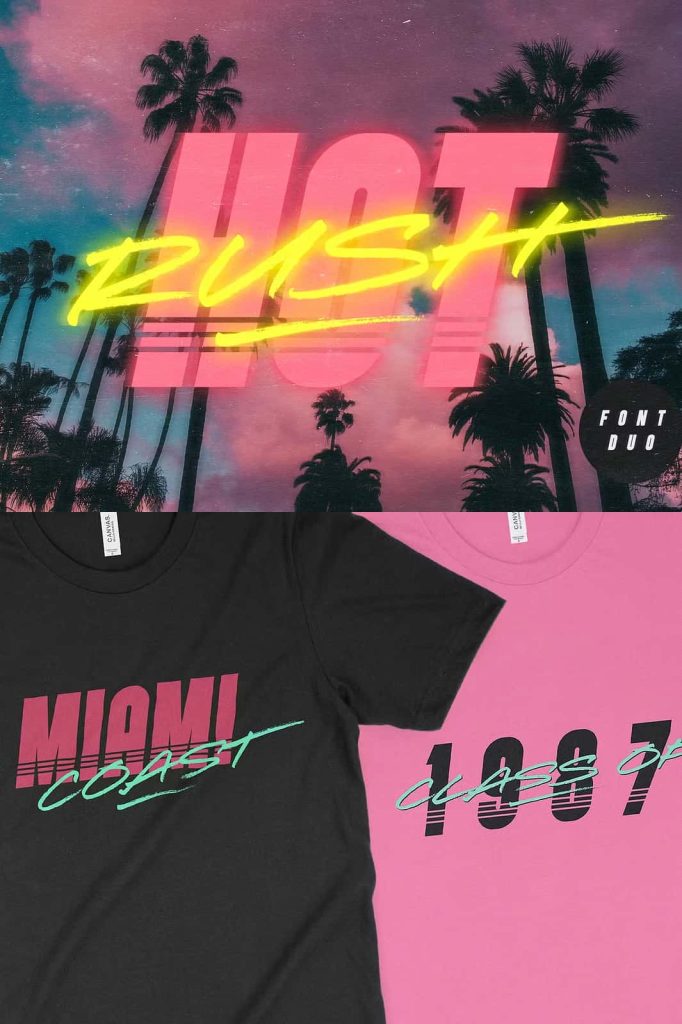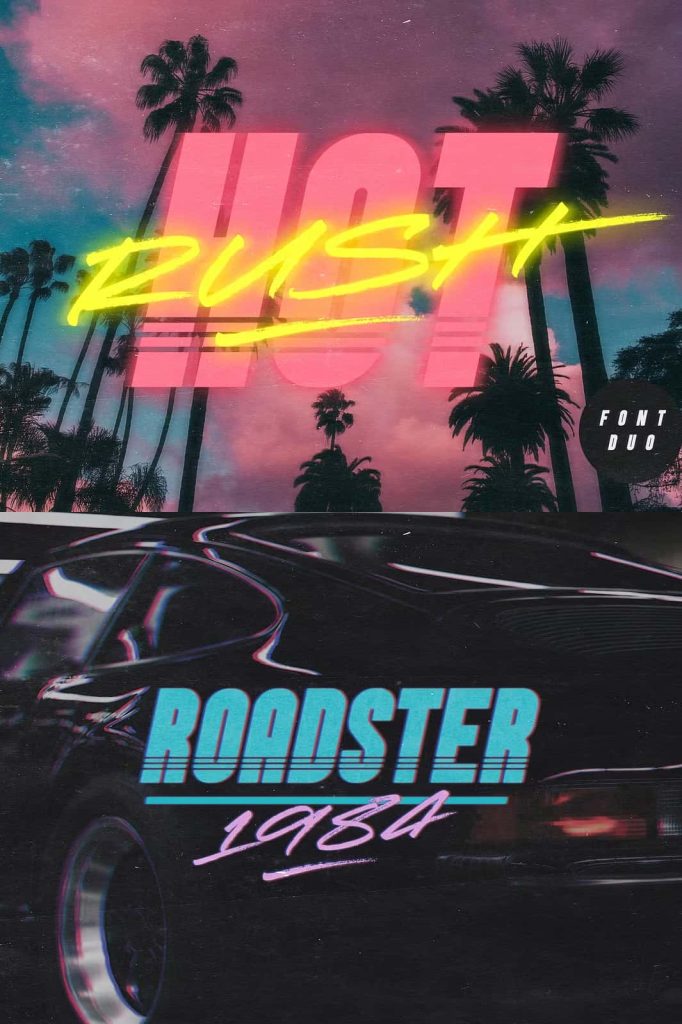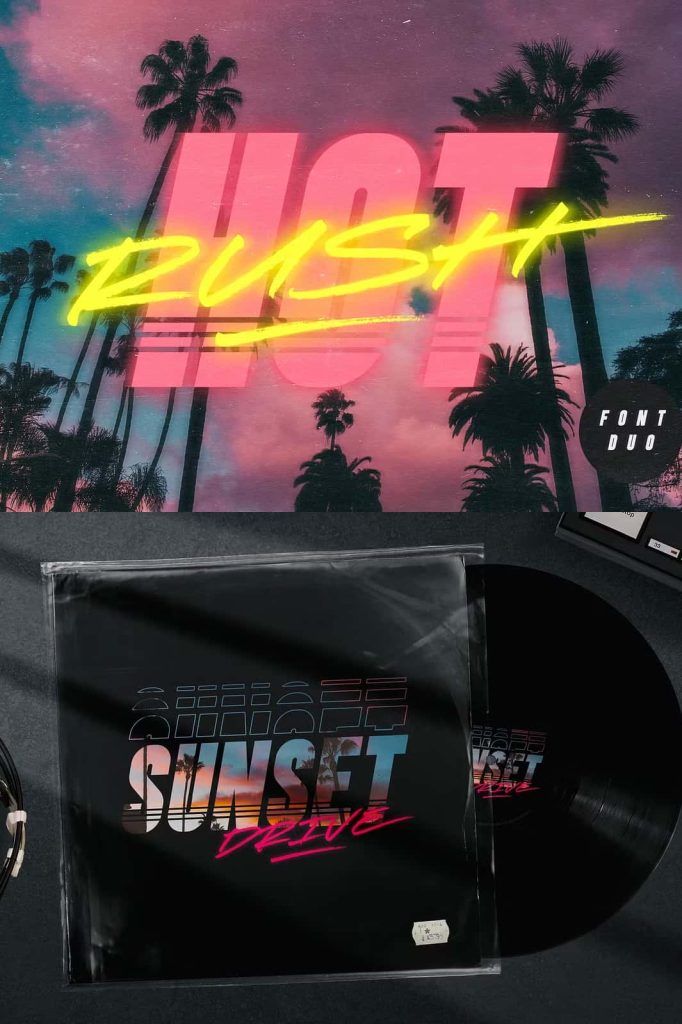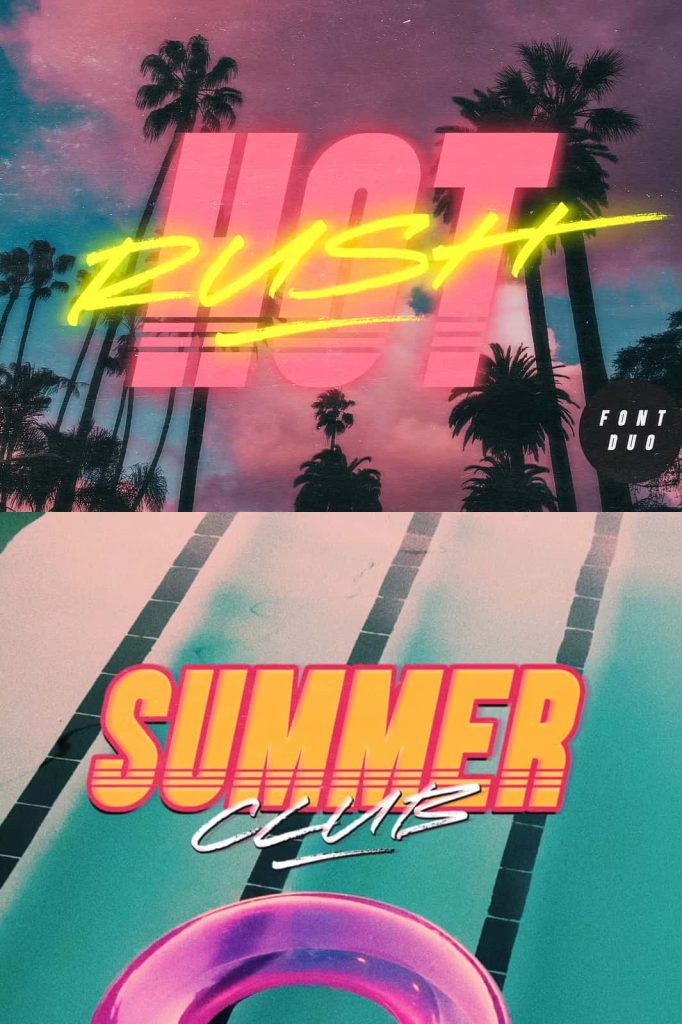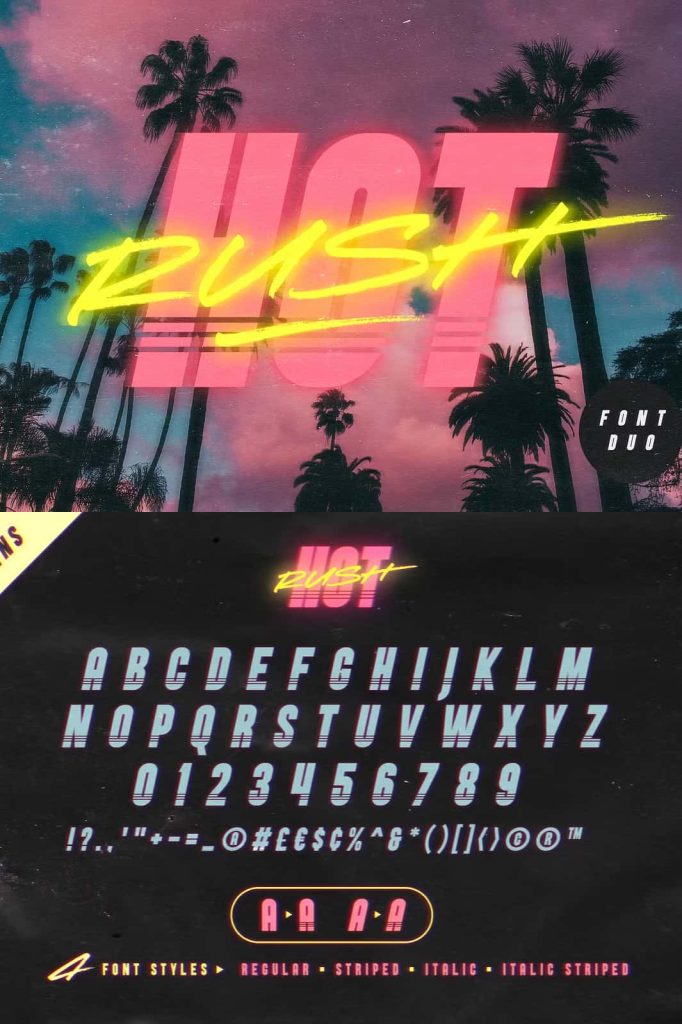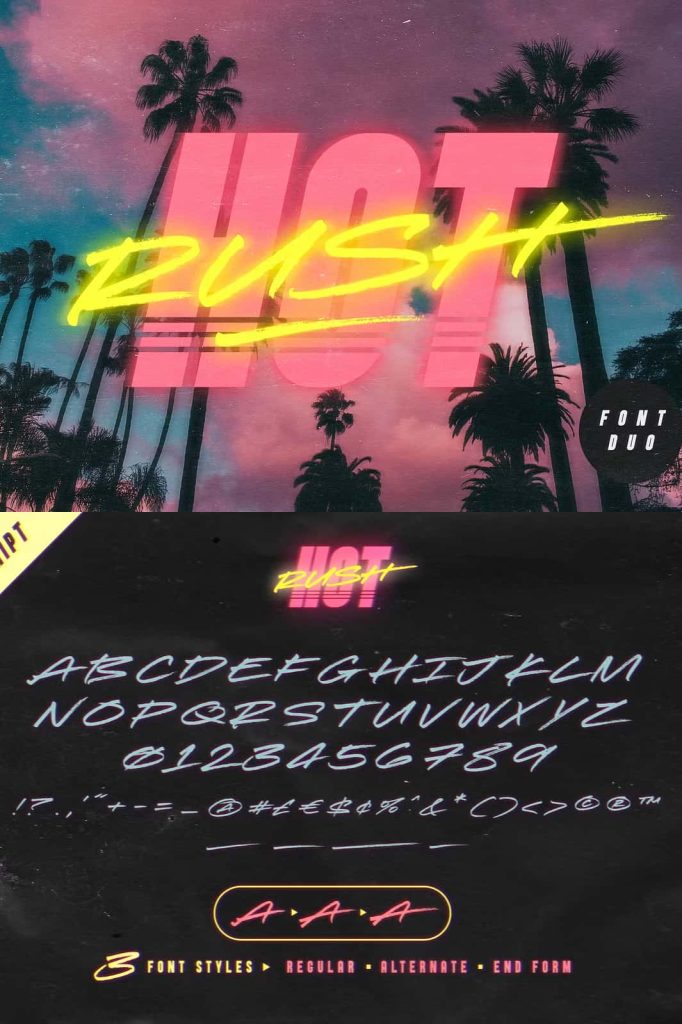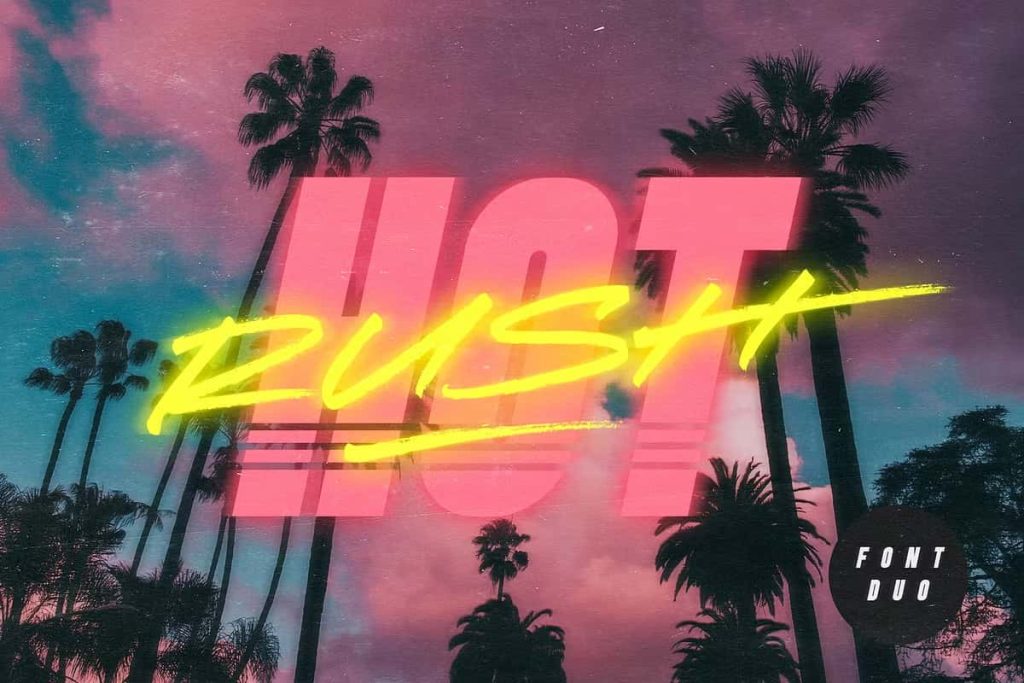
Hot Rush Font Duo
Hot Rush Retro Font Duo
Hot Rush is a dynamic retro font duo inspired by the bold visual culture of the 1980s. This unique typeface combination brings together a clean, condensed sans serif and a fast-moving textured script, creating a powerful pairing that delivers strong visual impact. Designed for designers who want to capture the unmistakable energy of retro aesthetics, Hot Rush offers the perfect balance between structure and expressive motion.
The font duo channels the excitement and futuristic optimism of the 1980s, a time when neon lights, arcade graphics, and cinematic science fiction defined visual trends. With its striking contrast between sharp sans serif structure and energetic script strokes, Hot Rush allows designers to recreate that nostalgic atmosphere while still producing modern, professional designs.
A Tribute to Iconic 80s Design Culture
Hot Rush draws heavy inspiration from the visual identity of the 1980s. During this era, designers embraced bold typography, high contrast layouts, and energetic lettering styles. Posters, album covers, movie titles, and merchandise frequently used dramatic fonts that captured the fast-paced spirit of the decade.
The Hot Rush font duo reflects this creative legacy. Its design celebrates the boldness and excitement associated with classic retro themes. The typeface immediately evokes the feeling of vintage arcade games, retro sports graphics, and neon-lit cityscapes.
The reference to high-speed nostalgia, reminiscent of a futuristic sports car accelerating toward 88 miles per hour, captures the energetic tone of the typeface. Hot Rush transforms that iconic retro energy into a versatile typography system that designers can use in many modern projects.
The Clean and Condensed Sans Serif
The sans serif component of Hot Rush provides a strong typographic foundation. It features a clean, condensed structure that emphasizes clarity and boldness. The narrow letterforms allow designers to create impactful headlines without occupying excessive horizontal space.
This condensed style makes the font particularly effective for large display text. The letters maintain excellent readability even at bold sizes, ensuring that titles remain sharp and highly visible.
The simplicity of the sans serif design also makes it extremely versatile. Designers can use it independently for modern typography or combine it with the script font to produce the full retro aesthetic that defines the Hot Rush font duo.
The Energetic Textured Script
Complementing the structured sans serif is the expressive script font that gives Hot Rush its signature personality. This script features long, fast, sweeping strokes that create a sense of motion and excitement.
The textured details in the lettering add depth and authenticity, making the script feel dynamic and handcrafted rather than mechanically perfect. These rough edges and energetic lines reflect the bold graphic styles often seen in vintage sports branding, racing graphics, and retro promotional materials.
When paired with the condensed sans serif, the script adds contrast and visual excitement. The combination creates a layered typographic effect that feels both stylish and nostalgic.
A Perfectly Balanced Font Pairing
Hot Rush works especially well because the two fonts complement each other perfectly. The structured sans serif anchors the design with clarity and stability, while the script introduces movement and expressive flair.
This pairing allows designers to build strong typographic hierarchies. The sans serif works well for main titles, supporting text, or bold headlines, while the script can highlight key words, slogans, or brand names.
By combining these two styles, designers can create layouts that feel energetic, balanced, and visually engaging.
Perfect for Retro Display Typography
Hot Rush shines brightest in high-impact display typography. Its bold shapes and energetic strokes make it ideal for projects where text must immediately capture attention.
Designers frequently use the font duo for retro posters, promotional graphics, album artwork, and event titles. The strong visual identity of the typeface allows it to dominate a layout while still maintaining clarity and readability.
Because of its nostalgic character, Hot Rush works especially well for projects that celebrate vintage culture, classic cars, retro gaming, or 80s-inspired fashion.
Excellent for Logos and Branding
The combination of bold structure and expressive script makes Hot Rush a powerful choice for logo design and brand identity systems. The typeface can help brands create distinctive visual identities that feel energetic and memorable.
Businesses in industries such as entertainment, fashion, sports, and lifestyle branding can benefit greatly from the retro aesthetic of the font. The pairing allows designers to craft logos that feel dynamic and visually unique while maintaining strong legibility.
Designers who want to recreate the vibrant energy of the 1980s will find Hot Rush to be an ideal creative tool. Whether used for logos, merchandise, posters, or promotional graphics, the font duo delivers powerful visual impact and unmistakable retro character.
With its strong personality, dynamic pairing, and nostalgic inspiration, Hot Rush continues to bring the thrilling spirit of classic retro design into contemporary creative projects.